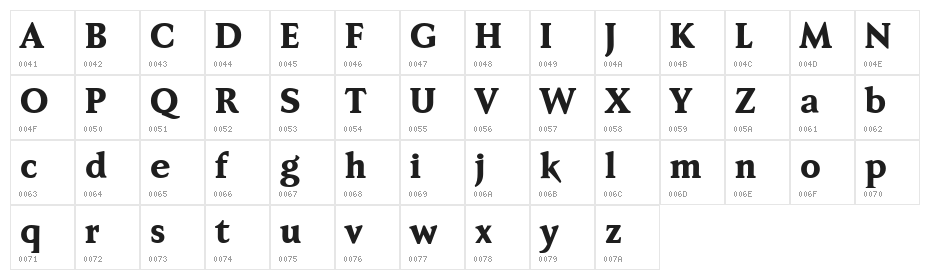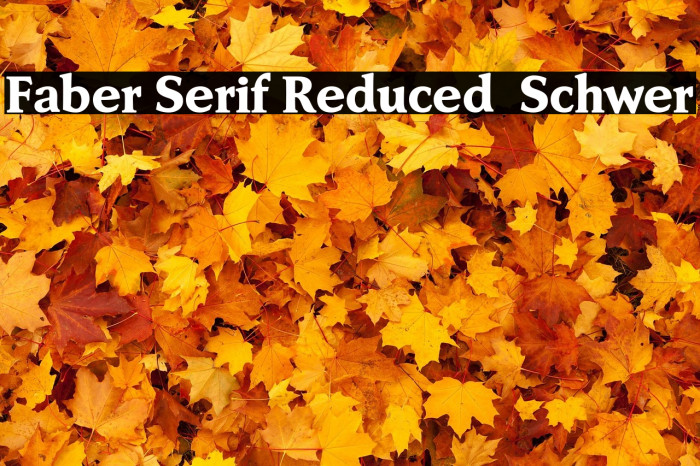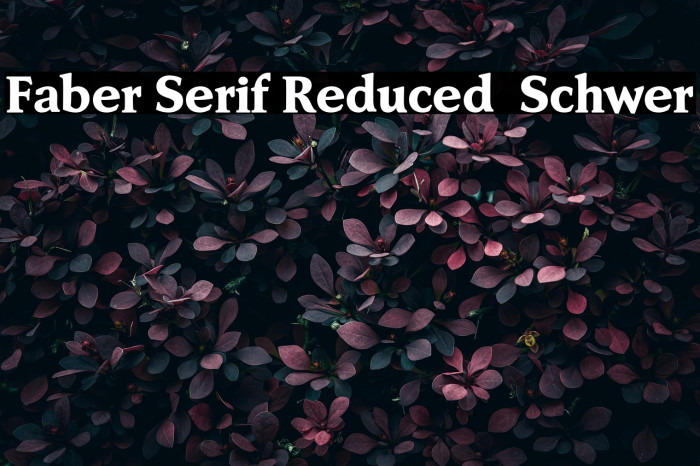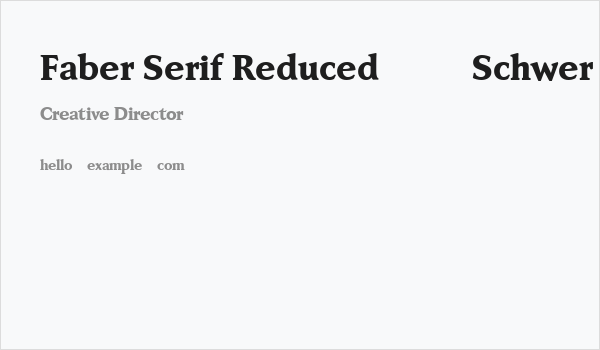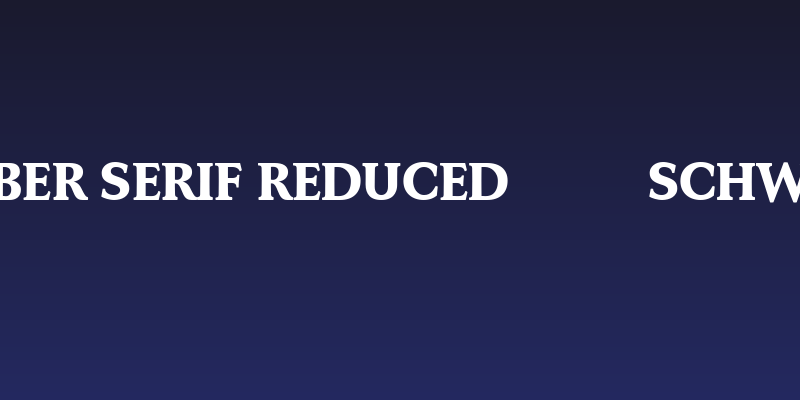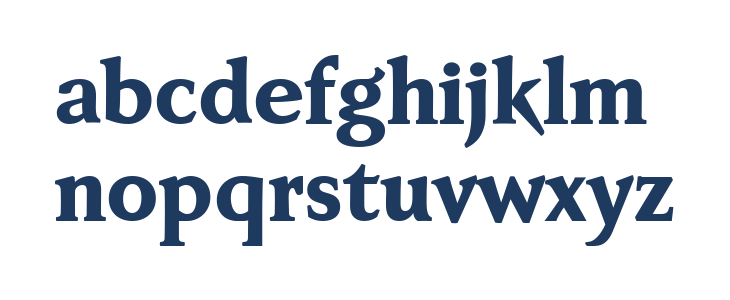
Faber Serif Reduced 85 Schwer Font
Faber Serif Reduced 85 Schwer Description
This font exhibits a classic serif style with strong, bold strokes and a traditional appearance. The serifs are pronounced, adding a sense of formality and elegance. The uppercase letters are robust and commanding, while the lowercase letters maintain a consistent weight, providing a harmonious balance. The numerals are clear and legible, matching the overall boldness of the alphabet. Special characters are well-integrated, maintaining the font's cohesive look. This font's design is suitable for projects that require a touch of sophistication and authority.
| Use Case | Headlines, Logos, Editorial design |
| Proposed Projects | Ideal for book covers, formal invitations, editorial design, and branding materials that require a classic and authoritative look. |